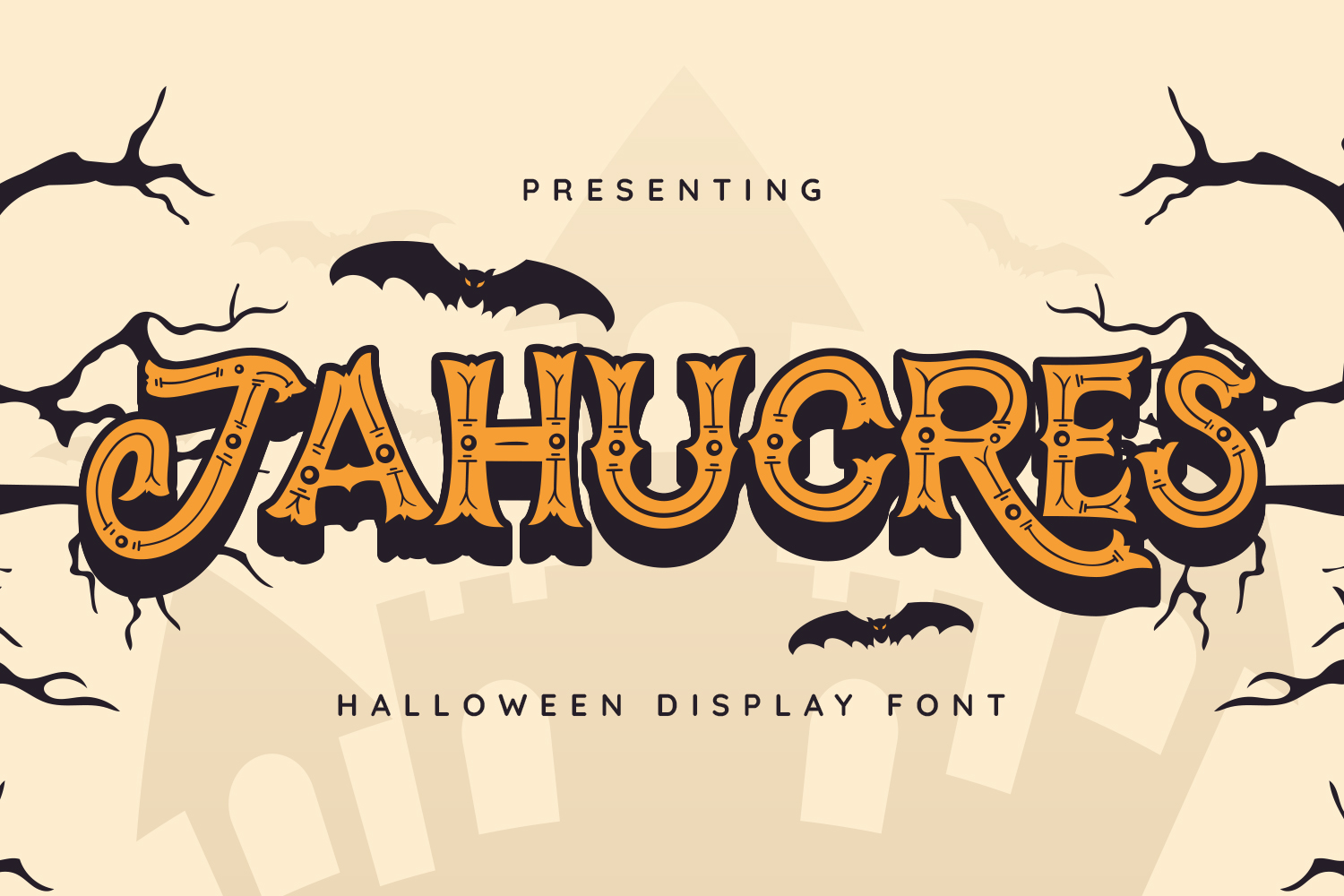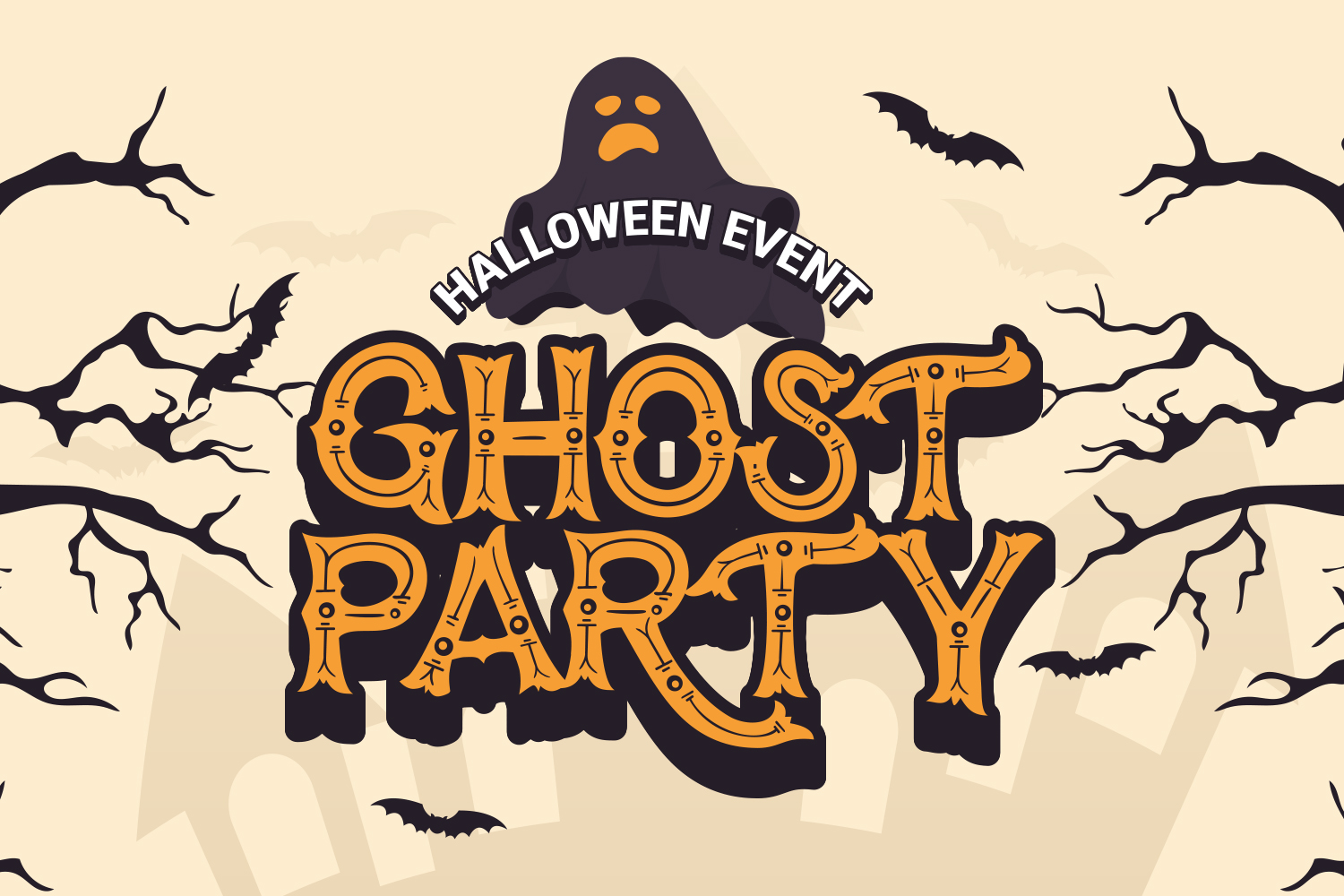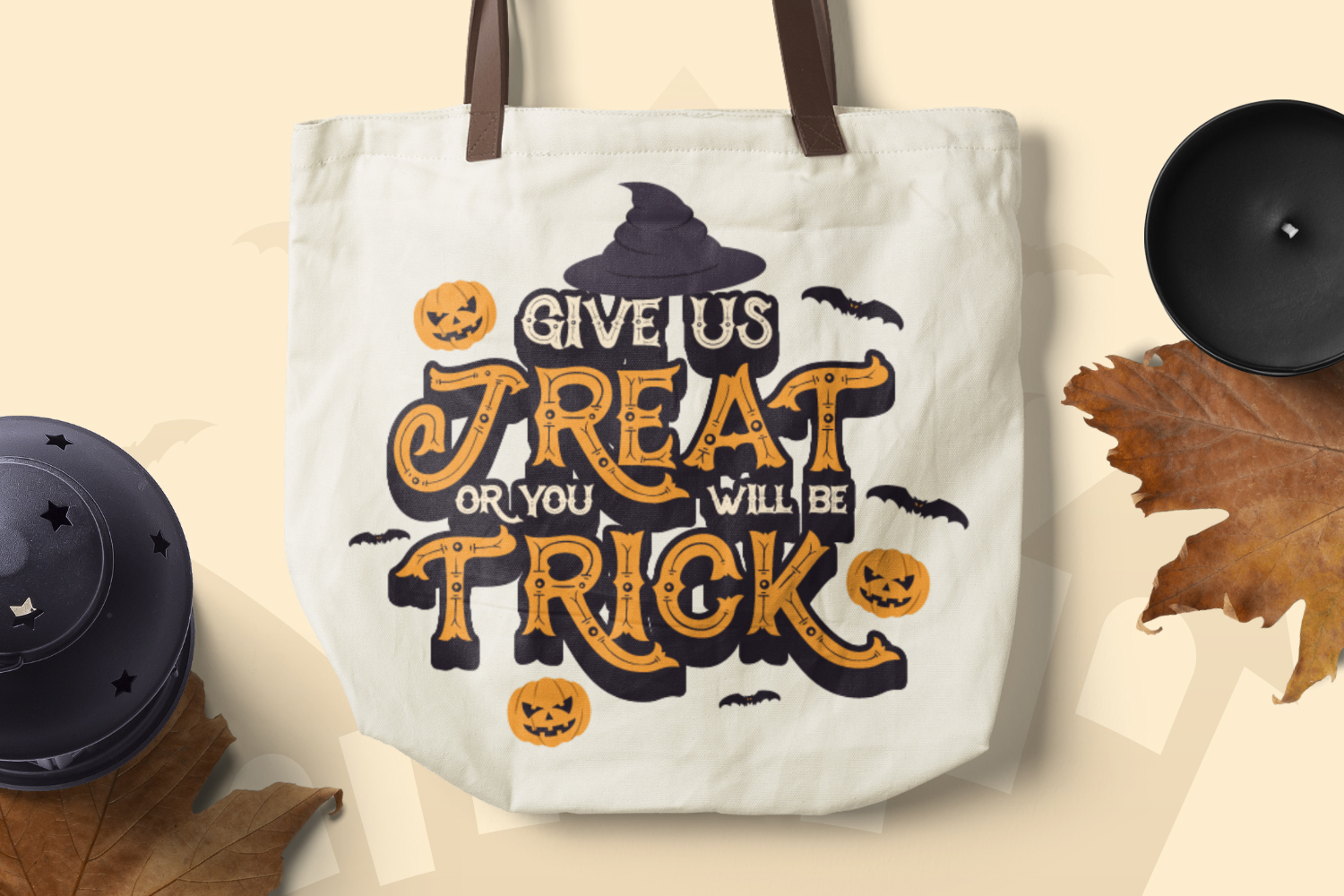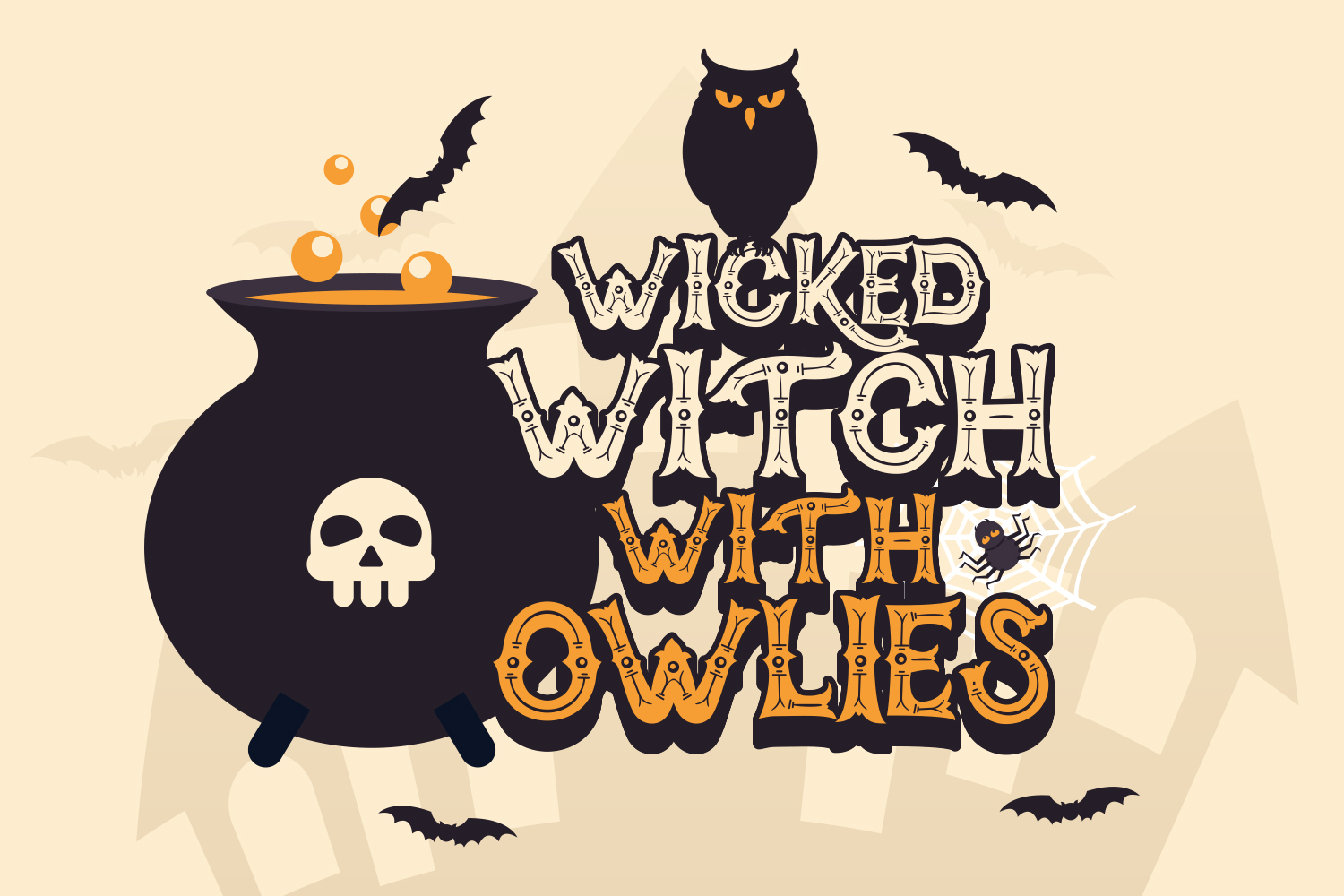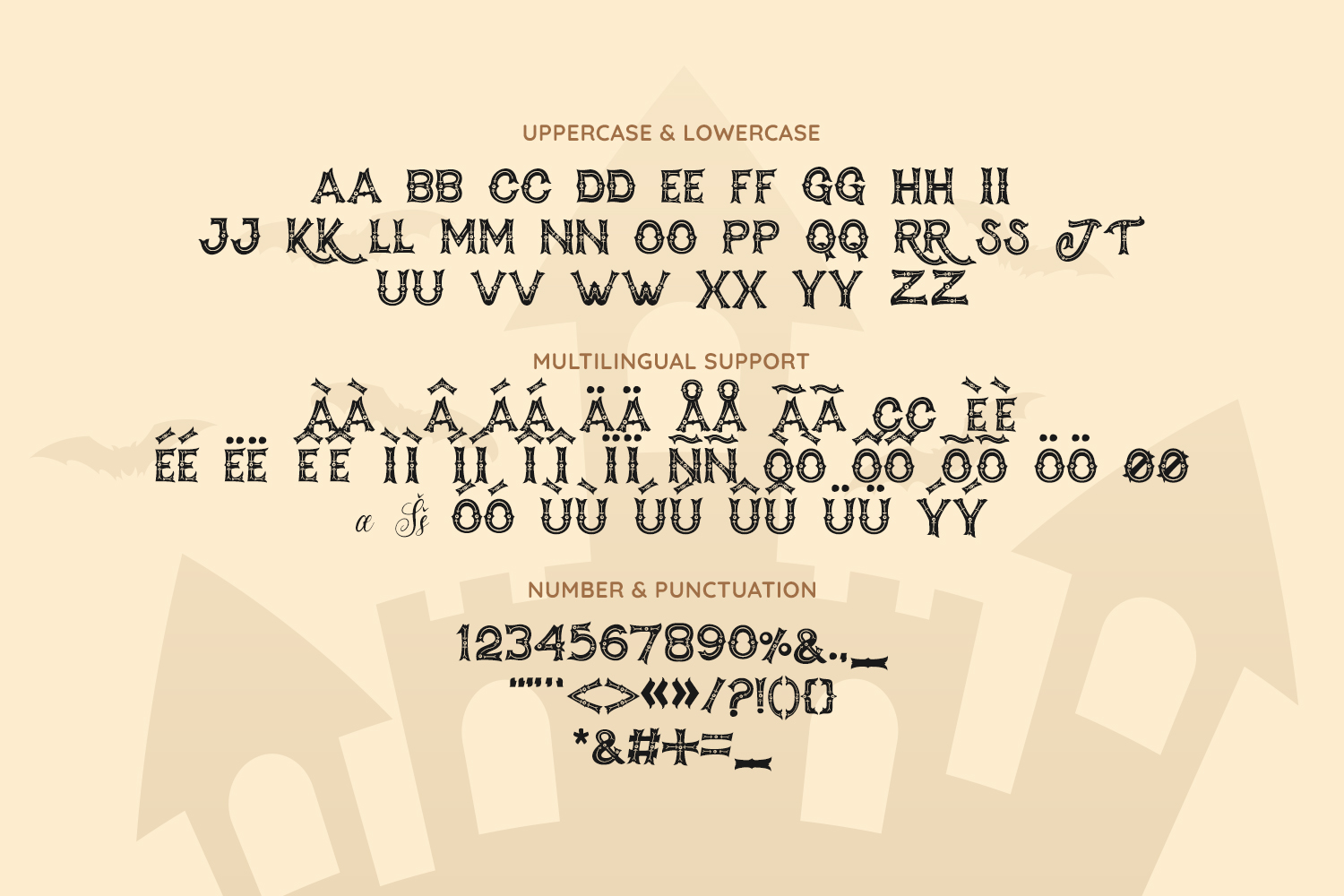
Tahucres is a decorative Halloween display font with a mystical and playful twist. Designed with creepy curves, dot accents, and bold outlines, it captures the essence of spooky celebrations in a fun and whimsical way. From haunted house flyers to ghost-themed merchandise, Tahucres brings a festive fright to your typography. It’s the perfect font to highlight Halloween invitations, eerie branding, and kid-friendly monster events.
This font includes uppercase and lowercase letters, multilingual support, numerals, and a complete set of punctuation. Its vintage horror vibe pairs well with illustrations and seasonal designs, making it an excellent choice for Halloween party posters, trick-or-treat bags, greeting cards, and themed packaging.
Tahucres